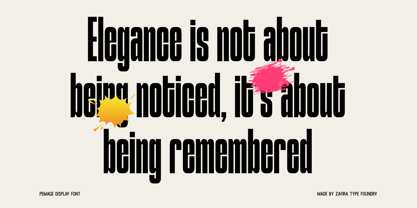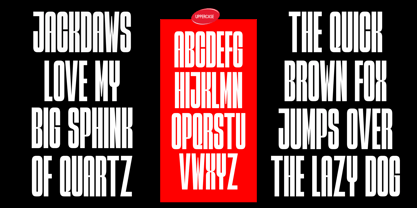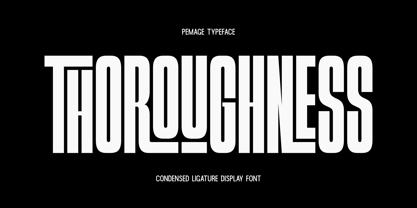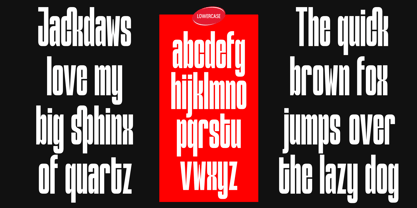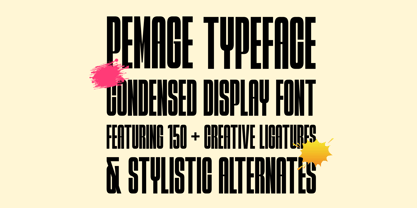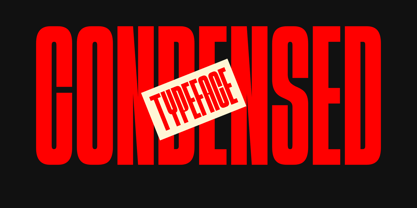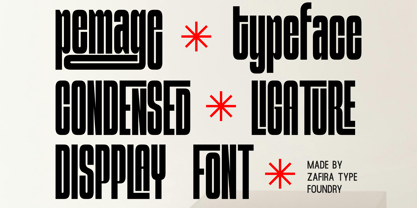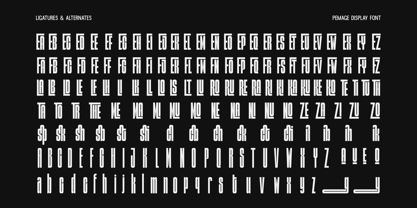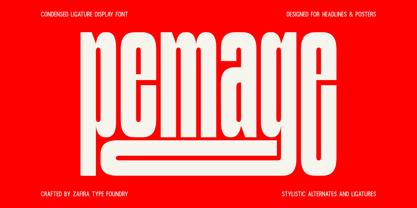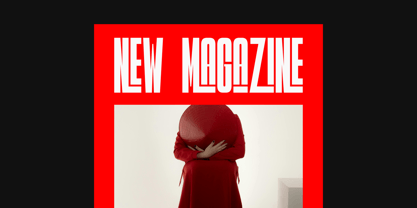
Pemage
Pemage is a modern condensed sans serif typeface designed with clean precision and editorial sophistication. Its tall, narrow proportions and minimalistic form make it perfect for high-impact headlines, fashion branding, and contemporary layouts. Pemage is versatile yet bold, ideal for magazines, posters, packaging, and visual identities that seek a refined but confident tone.
Features:
– Condensed sans serif style
– Tall x-height and narrow spacing
– Ideal for editorial, fashion, branding, and posters
– Modern, clean, and professional look
– Supports multilingual characters